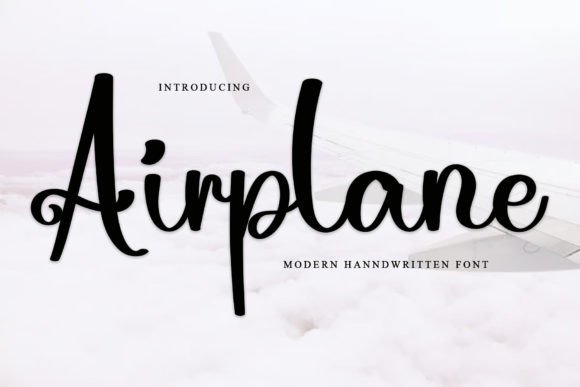
The Magic of Airplane Font: Elevate Your Holiday Designs
It’s that time of the year again – the holiday season is just around the corner, and with it comes the pressure to create stunning designs that capture the spirit of the festivities. I still remember the year I was tasked with designing a Christmas card for a client’s family reunion. I spent hours scouring the internet for the perfect font, but nothing seemed quite right. That was until I stumbled upon the Airplane Font. With its whimsical flair and decorative elements, it instantly brought my design to life.
An Honest Review of Airplane Font
As a designer, I’m always on the lookout for fonts that can add a touch of magic to my projects. Here’s what I love about Airplane Font:
- ✨ Festive and merry vibe that’s perfect for the holiday season
- ✅ Whimsical flair and decorative elements that add enchantment to designs
- 👍 Highly legible, even at smaller font sizes
While Airplane Font is a fantastic addition to any design project, there are a few quirks to be aware of:
- 🤔 Limited use outside of holiday-themed projects (it’s a niche font, after all!)
- ⚠️ May not be suitable for body text due to its decorative nature
The Backstory of Airplane Font
Airplane Font was designed by a team of creatives who wanted to capture the magic of the holiday season in a typographic form. Inspired by vintage holiday posters and decorations, they crafted a font that’s both festive and fun. The result is a font that’s perfect for adding a touch of enchantment to your holiday designs.
| Font Name | Airplane Font |
| What is Airplane Font? | Airplane Font is a festive and merry typeface that’s perfect for holiday-themed projects. |